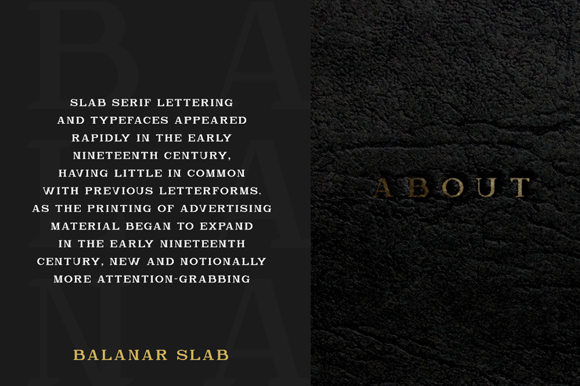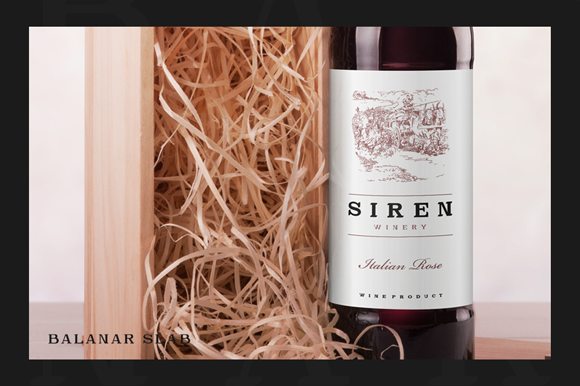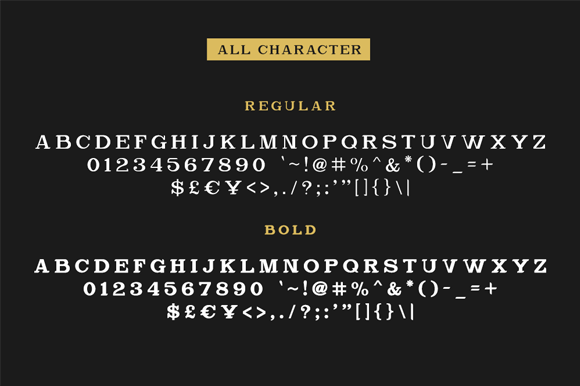
Balanar Font: A Timeless Classic with a Cool Vibe
In the world of typography, fonts play a crucial role in conveying the tone and personality of a brand or design. Among the numerous fonts available, Balanar stands out as a classic and sophisticated slab serif font that exudes a cool vibe. In this article, we’ll delve into the unique charm of Balanar and explore its features, uses, and benefits for designers and crafters.
The Origins of Balanar
Balanar is a slab serif font that draws inspiration from traditional typography. Its classic design is reminiscent of vintage posters and signs, yet it boasts a modern twist that makes it suitable for contemporary designs. The font’s unique charm lies in its balanced and harmonious letterforms, which convey a sense of stability and reliability.
Key Features of Balanar
So, what makes Balanar a standout font? Here are some of its key features:
• Slab Serif Design: Balanar’s slab serif design gives it a distinctive look that’s both classic and modern.
• Cool Vibe: The font’s unique charm is characterized by a cool and sophisticated vibe that’s perfect for designs that require a touch of elegance.
• Legibility: Balanar’s letterforms are designed to be highly legible, making it suitable for body text and headlines.
• Versatility: The font is versatile and can be used for a wide range of designs, from posters and signs to digital media and branding.
Uses of Balanar
Balanar is a versatile font that can be used in various design projects. Here are some examples:
• Posters and Signs: Balanar’s classic design makes it perfect for creating eye-catching posters and signs.
• Branding and Identity: The font’s sophisticated vibe makes it suitable for branding and identity designs that require a touch of elegance.
• Digital Media: Balanar can be used for digital media, such as website headers, social media graphics, and email marketing campaigns.
• Crafting and DIY Projects: The font’s unique charm makes it perfect for crafting and DIY projects, such as handmade cards, scrapbooking, and woodworking.
Benefits of Using Balanar
So, why should designers and crafters choose Balanar for their projects? Here are some benefits:
• Unique Charm: Balanar’s unique charm sets it apart from other fonts, making it perfect for designs that require a touch of personality.
• Legibility: The font’s high legibility makes it suitable for body text and headlines, ensuring that your message is conveyed clearly.
• Versatility: Balanar’s versatility makes it suitable for a wide range of designs, from posters and signs to digital media and branding.
• Easy to Read: The font’s classic design makes it easy to read, even at small sizes.
Tips for Using Balanar
To get the most out of Balanar, here are some tips:
• Use it for Headlines: Balanar’s unique charm makes it perfect for headlines and titles.
• Pair it with Other Fonts: The font pairs well with other fonts, making it suitable for designs that require a combination of fonts.
• Experiment with Colors: Balanar’s classic design makes it suitable for a wide range of colors and color schemes.
• Use it for Body Text: The font’s high legibility makes it suitable for body text, especially for designs that require a lot of text.
In conclusion, Balanar is a classic and sophisticated slab serif font that exudes a cool vibe. Its unique charm, legibility, and versatility make it perfect for a wide range of designs, from posters and signs to digital media and branding. Whether you’re a designer or crafter, Balanar is a great choice for your next project. So, get inspired by its unique charm and take your designs to the next level!